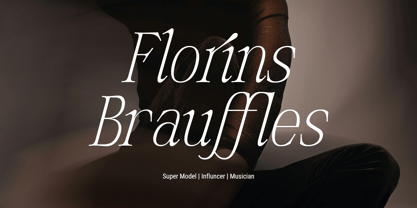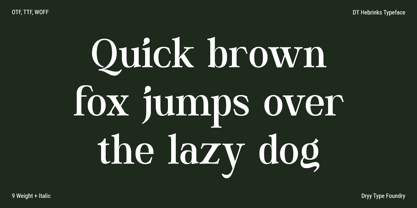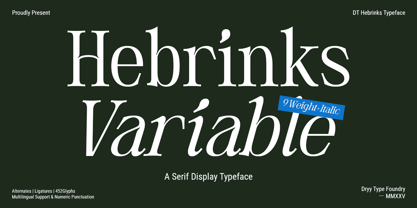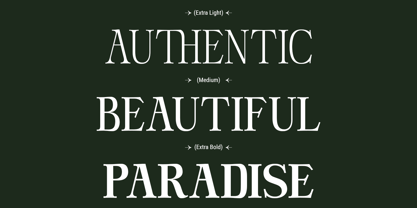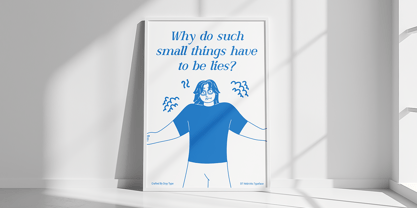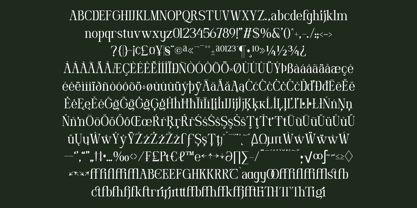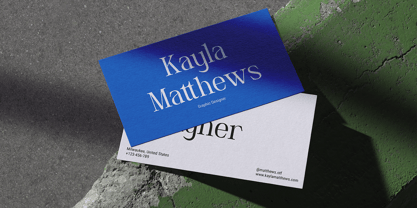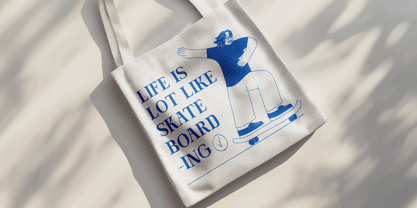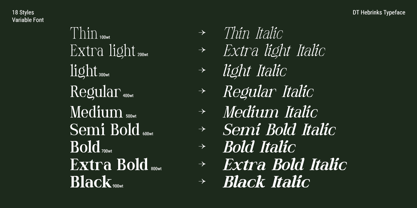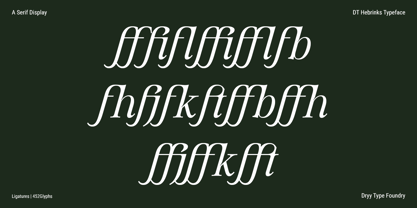
DT Hebrinks
by Dryy Type
The DT Hebrinks Font Family was designed by Rian Dryana and published by Dryy Type. DT Hebrinks contains 18 styles and family package options.
DT Hebrinks is a beautiful and elegant serif font. Inspired by New beginnings that try to look better in terms of quality and visuals, with dedication when making it that takes quite a long time. The font I created is meaningful & very versatile, suitable for various designs, elevating it to the highest level. Add this font to your favorite creative ideas and see the results!
Features: Uppercase, Lowercase, Punctuation Numbers, Alternate, Ligature & Multilingual Support
Variable Font 9 weight+Italic
Designers: Rian Dryana
Publisher: Dryy Type
Foundry: Dryy Type
Design Owner: Dryy Type